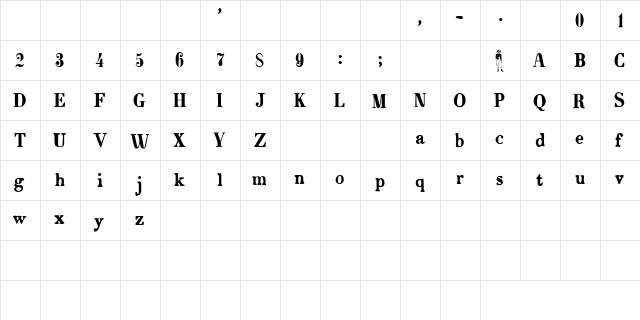
CF Bonaparte Regular
| Foundry | CloutierFontes |
| Designer | Steve Cloutier |
Design Context for CF Bonaparte Typeface
CF Bonaparte is a composed and adaptable typeface that performs quietly and consistently across a wide range of design contexts.